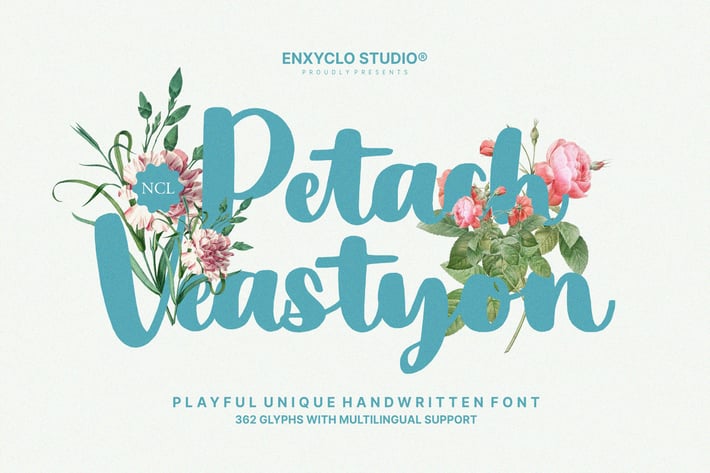
NCL Petach Veastyon - Playful Handwritten Font
NCL Petach Veastyon is a playful unique handwritten display font. Masterfully designed to become a true favorite, this font has the potential to bring each of your creative ideas to the highest level! It was purposely crafted to be used in large point sizes, although it doesn’t lose its magic in small point sizes. It is perfect for headline, digital ads, magazines, website, poster, branding, and logos. No matter the topic, this font will be an incredible asset to your fonts’ library, as it has the potential to elevate any creation. With this beautiful font, absolutely you can make your project stand out from the rest.
362 Unique Glyphs
15 Ligature
Numeral, Punctuation & Symbols